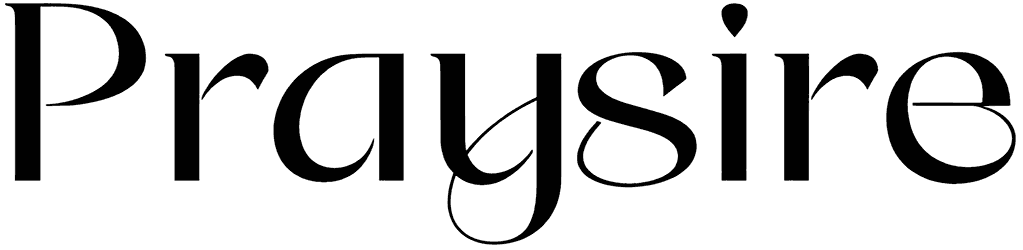
Praysire Font
Using classic and chic words can be vital in capturing interest in your design, and this serif font has such a form. The elegant letters of the Praysire font are going to give a royal form to your text that will impress your viewers. Whether it is a business card for a holding company or a movie poster, this luxury font can make them memorable.